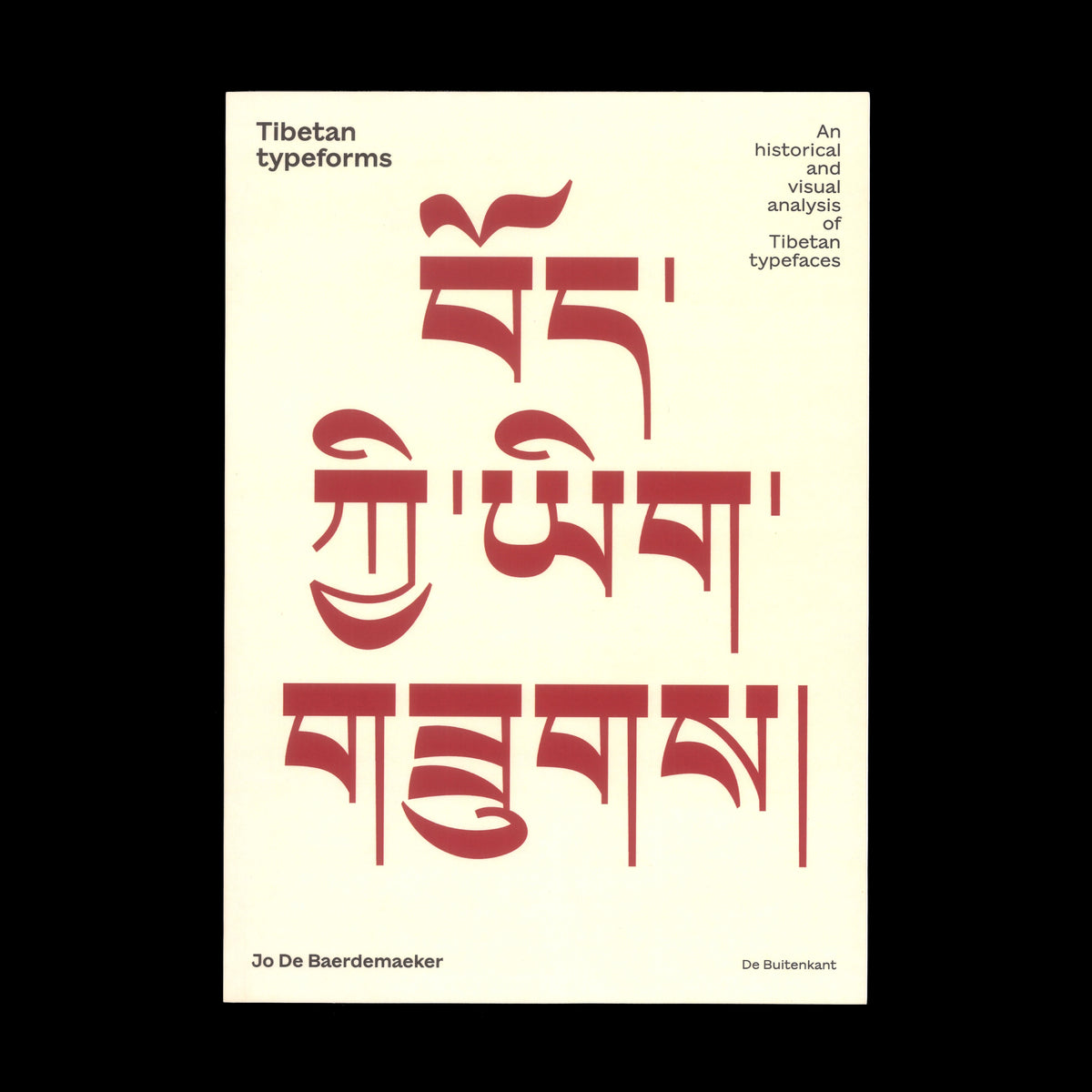
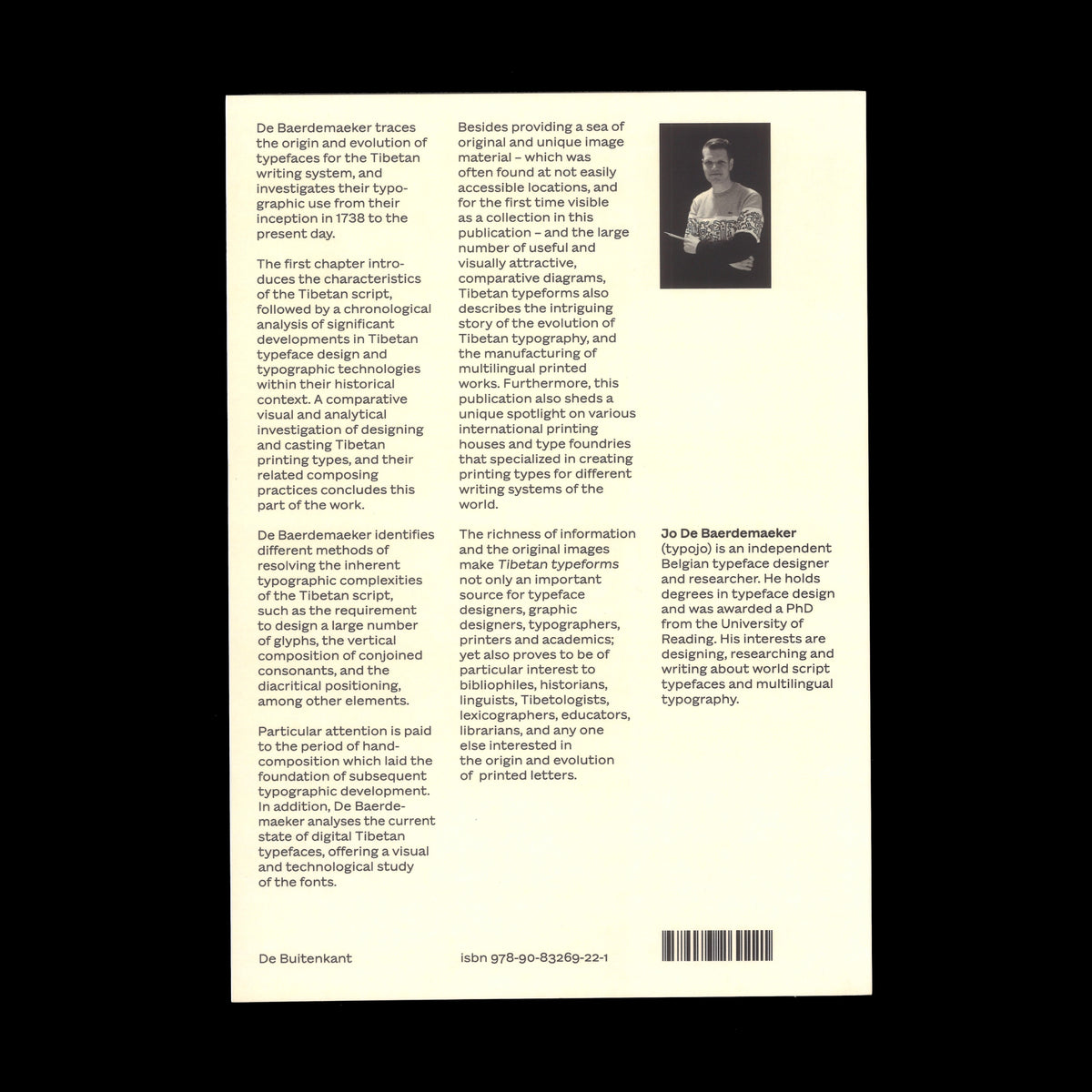
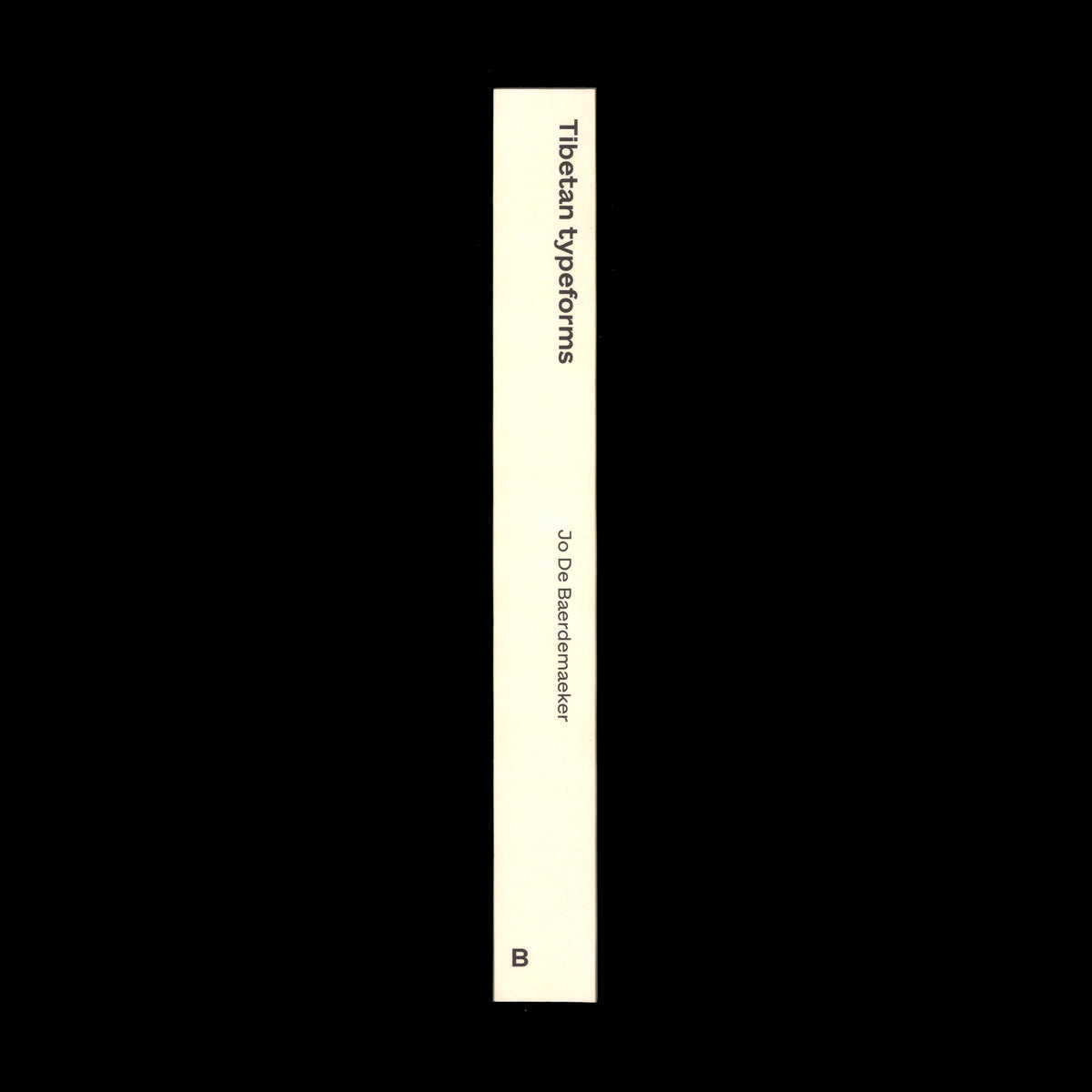
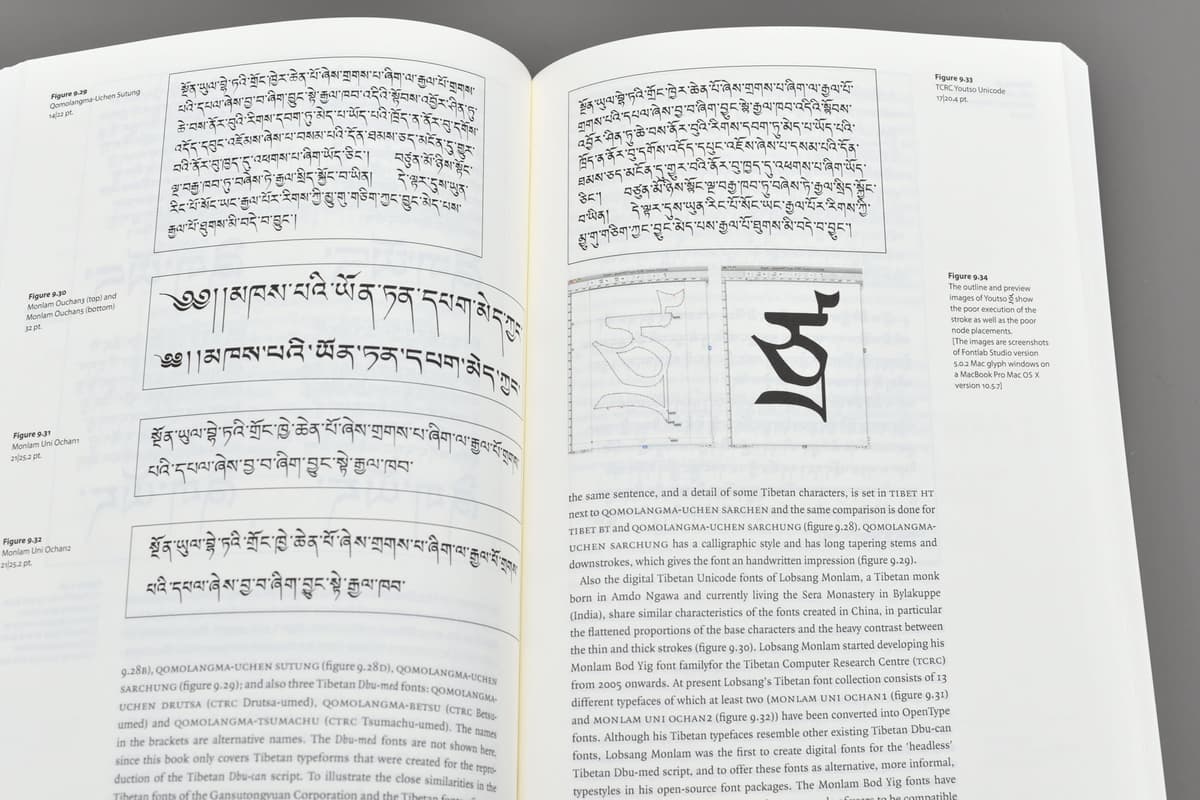
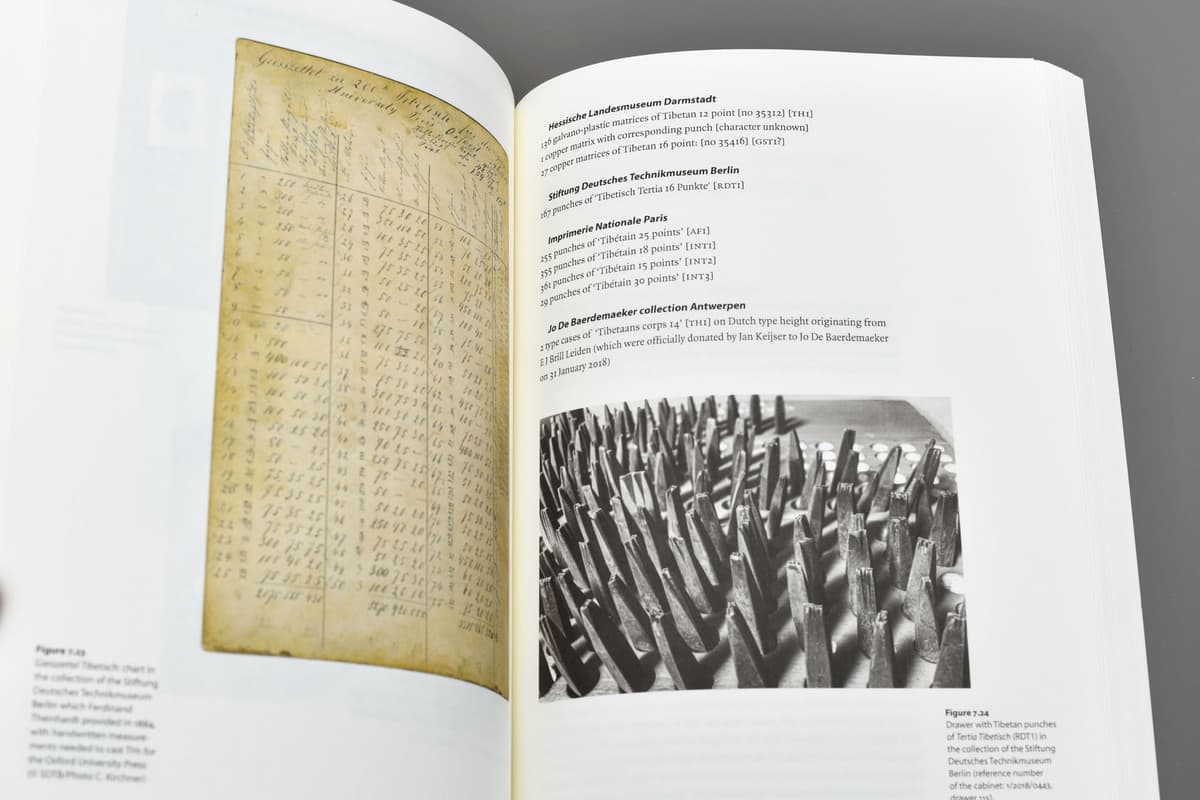
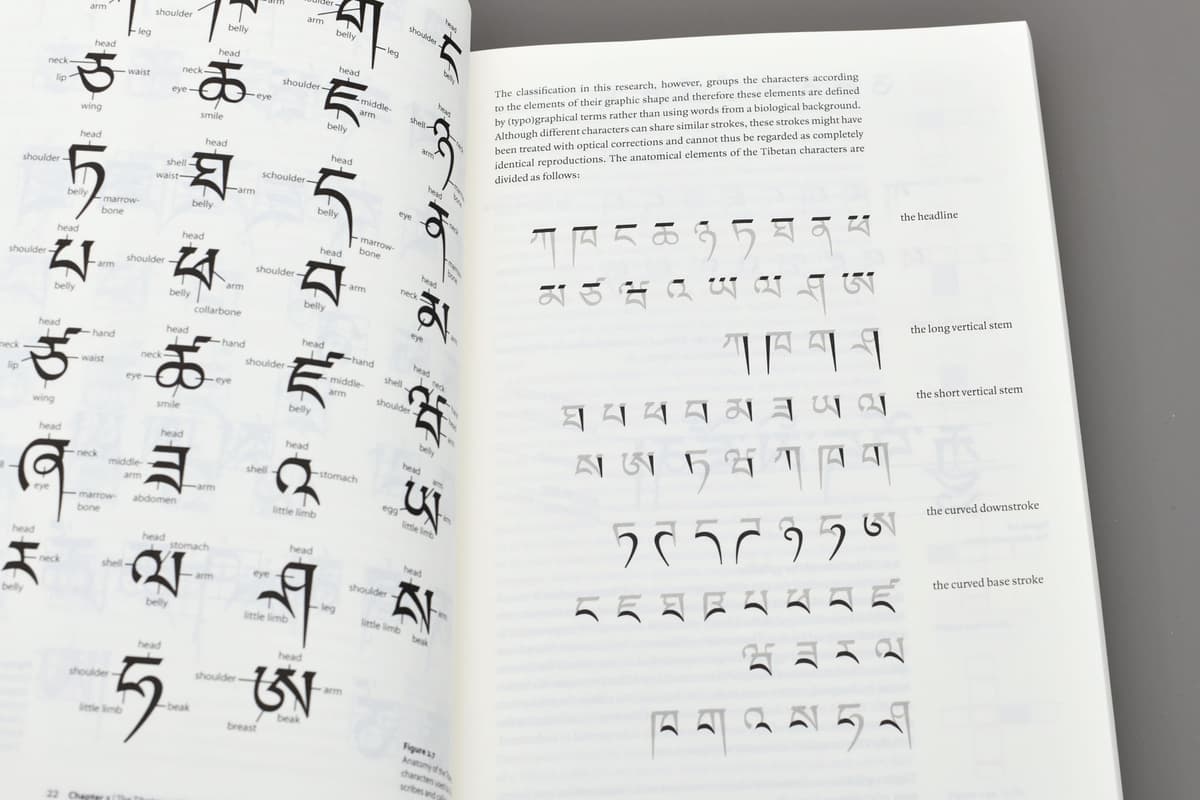
TIBETAN TYPEFORMS: AN HISTORICAL AND VISUAL ANALYSIS OF TIBETAN TYPEFACES by Jo De Baerdemaeker
‘Tibetan Typeforms’ presents in-depth research regarding the origin, development, and typographical function of letter types in Tibetan writing, from their beginnings in 1738 to the present. Besides introducing the characteristics of Tibetan script and the chronological evolution of letter design and typographic techniques, it also offers a comparative visual and analytical investigation of the manufacture of multilingual typesets and their deployment. Multiple solutions for these typographical complexities are identified, including the placement of diacritical marks, the vertical composition of syllable ligatures, and the many glyphs to be designed.
Tibetan Typeforms: An Historical and Visual Analysis of Tibetan Typefaces
Jo De Baerdemaeker